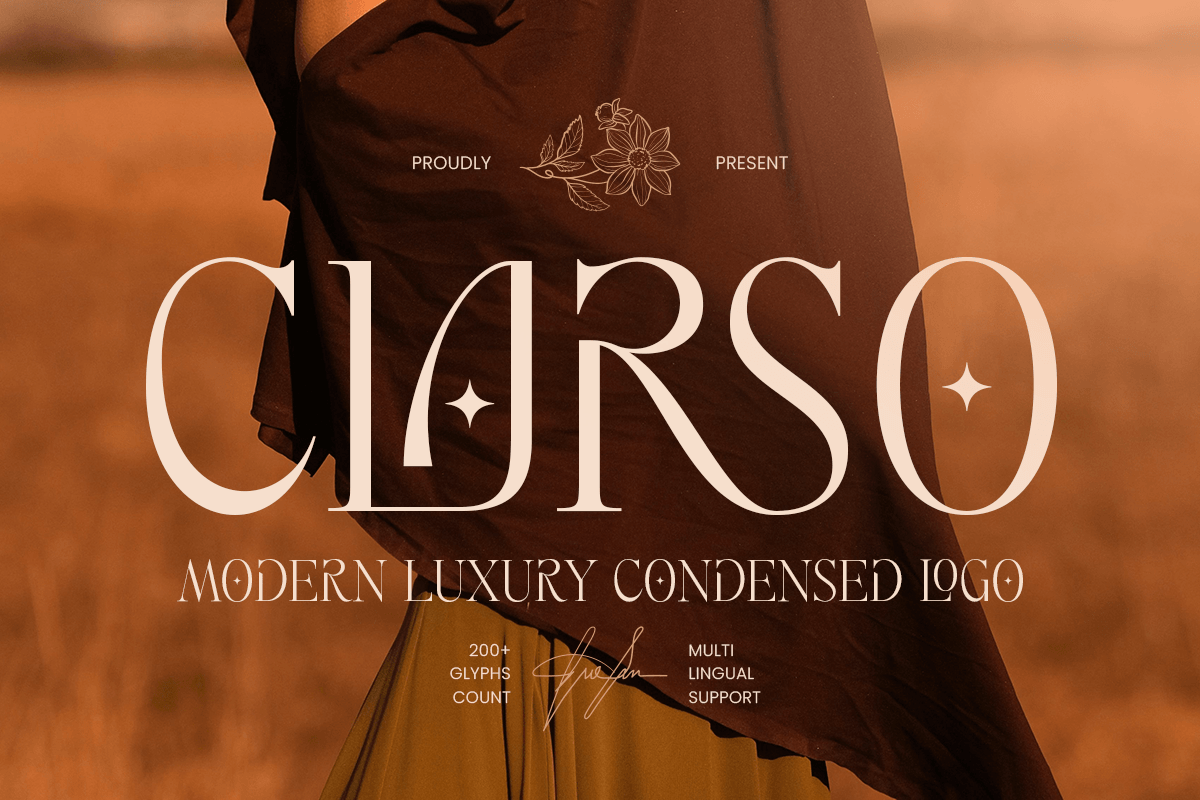
Clarso
-Modern Luxury Condensed Logo FontClarso - Modern Luxury Condensed Logo Font
CLARSO is a modern luxury condensed logo font designed to bring elegance, structure, and premium character to refined visual identities. With its tall condensed proportions, clean details, and sophisticated styling, this typeface is perfect for luxury logos, fashion branding, editorial titles, premium packaging, and high-end design projects.
Created for designers who need typography with both space efficiency and visual prestige, CLARSO combines modern minimalism with a luxurious display presence. Its narrow letterforms allow strong headline impact while maintaining a polished and elegant feel, making it ideal for logo marks, magazine covers, product labels, boutique branding, and upscale advertising.
Whether used for fashion labels, beauty brands, lifestyle packaging, or refined digital campaigns, CLARSO delivers a confident, stylish, and memorable typographic voice across both print and digital media.
CLARSO – Modern Luxury Condensed Logo Font Features
Modern condensed letterforms with luxury branding appeal
Perfect for logos, editorials, packaging, and premium identity systems
Tall, stylish proportions for elegant and space-smart typography
Ideal for fashion, beauty, lifestyle, boutique, and luxury industries
OpenType features for enhanced typographic styling
Create elevated luxury branding with CLARSO – the perfect condensed logo font for elegant, premium, and sophisticated design. ✨